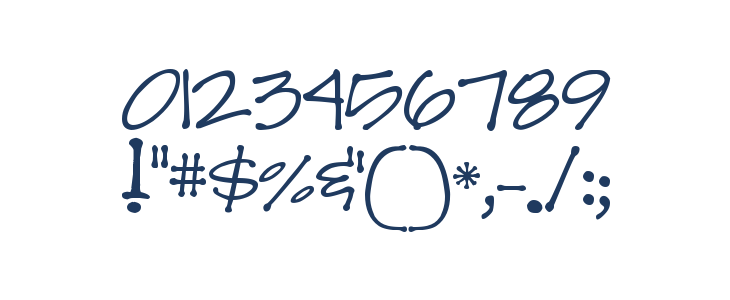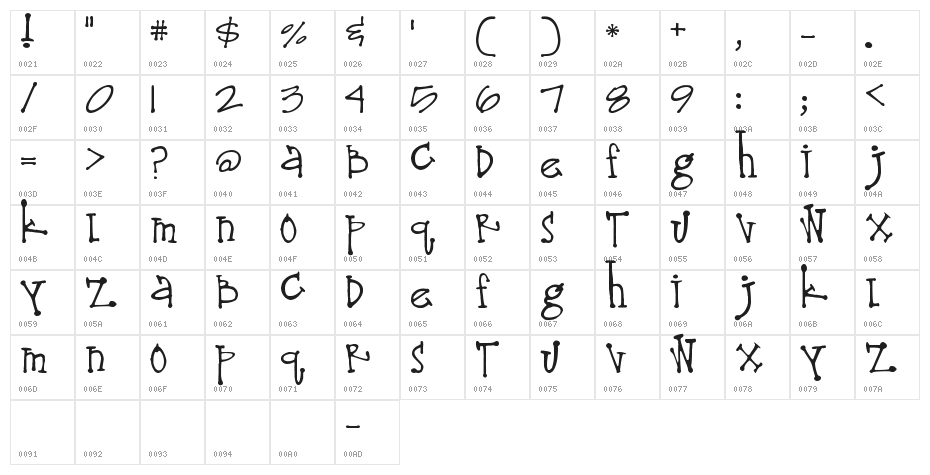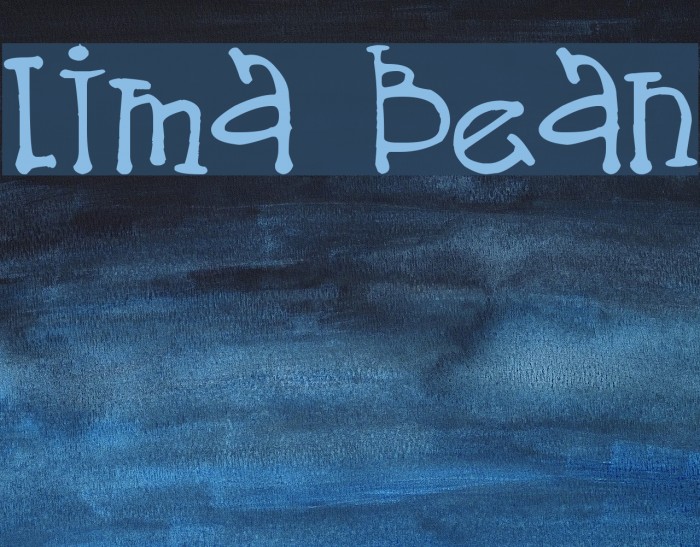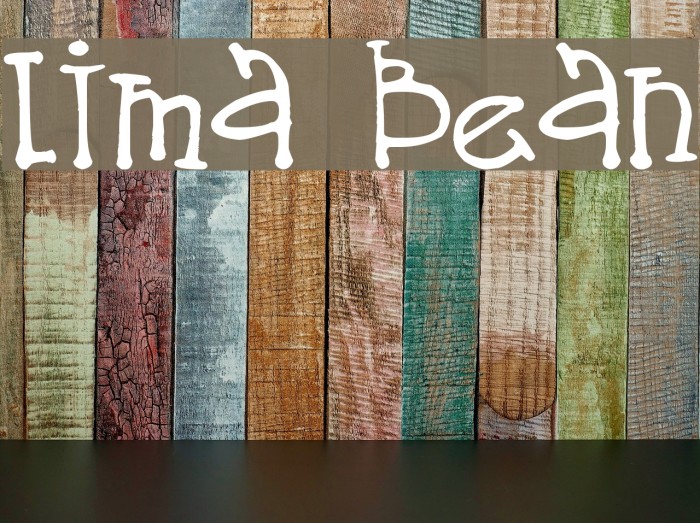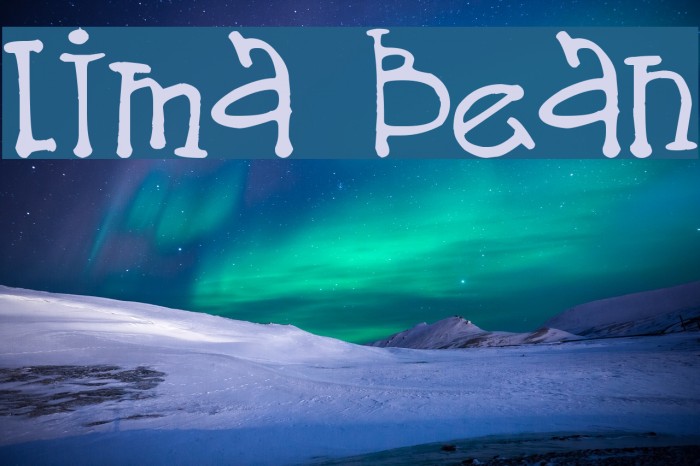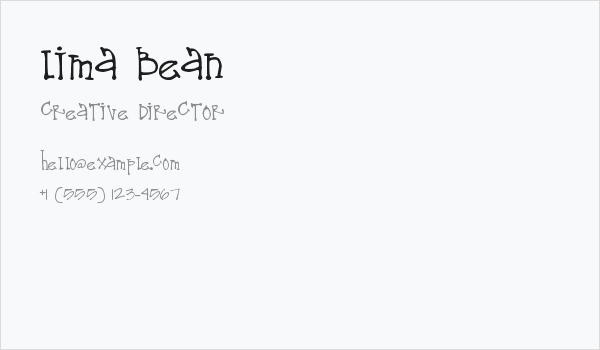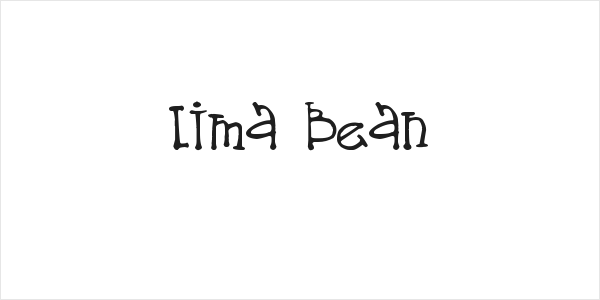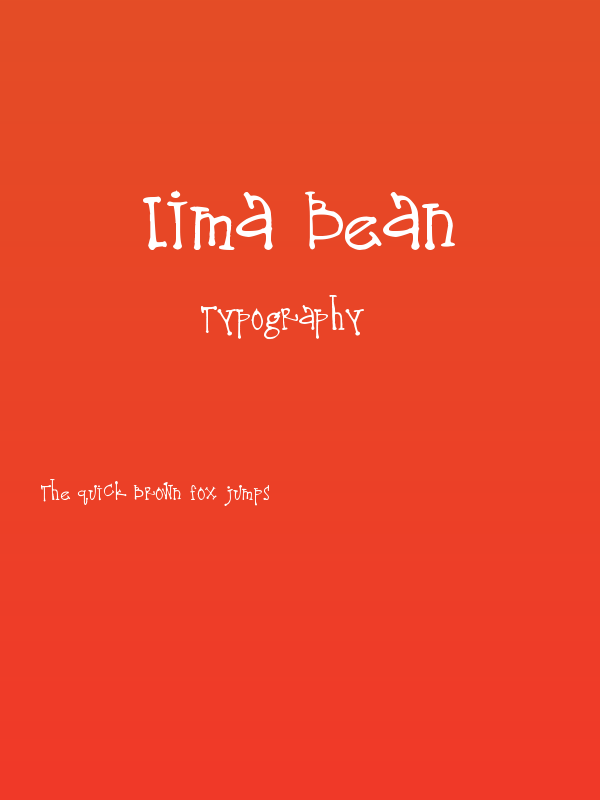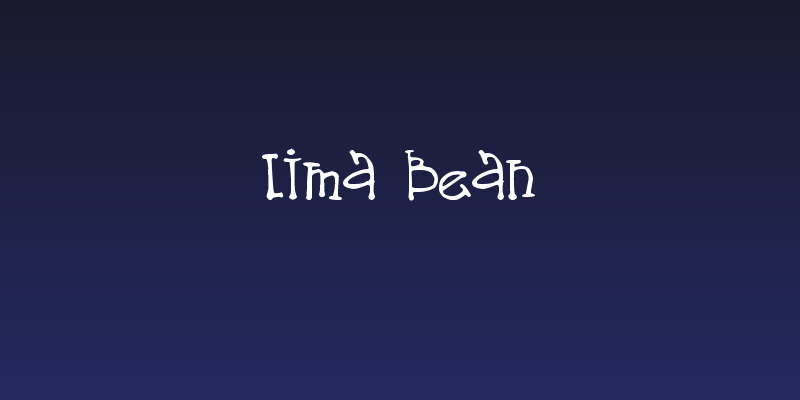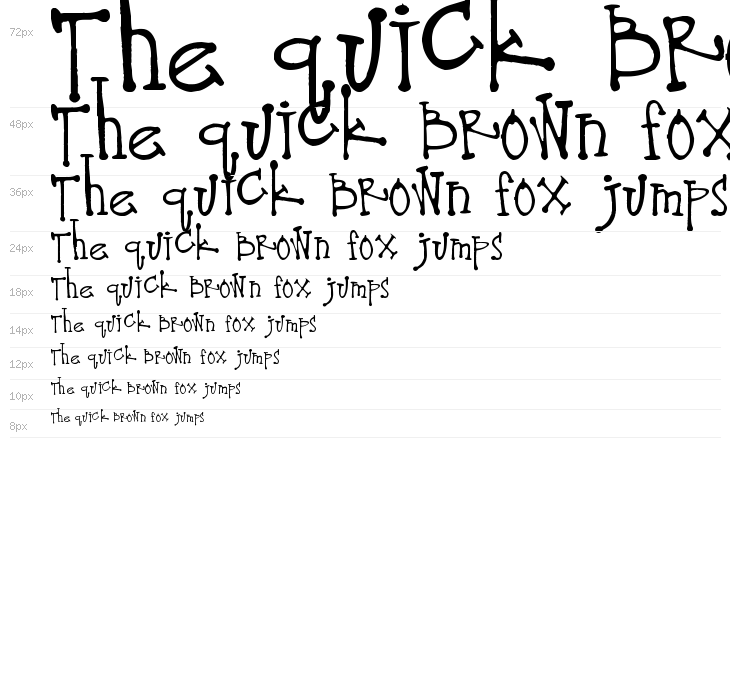
Lima Bean Font
Lima Bean Description
This playful and whimsical font features irregular, hand-drawn characters that exude a sense of fun and creativity. The letters have a casual, almost childlike quality, with varying stroke thicknesses and uneven baselines that add to its charm. The uppercase and lowercase letters maintain a consistent style, while the numerals and special characters complement the overall design. This font is perfect for projects that require a touch of personality and informality, making it ideal for children's books, playful branding, or artistic posters.
| Proposed Projects | Children's books, playful branding, artistic posters, casual invitations. |